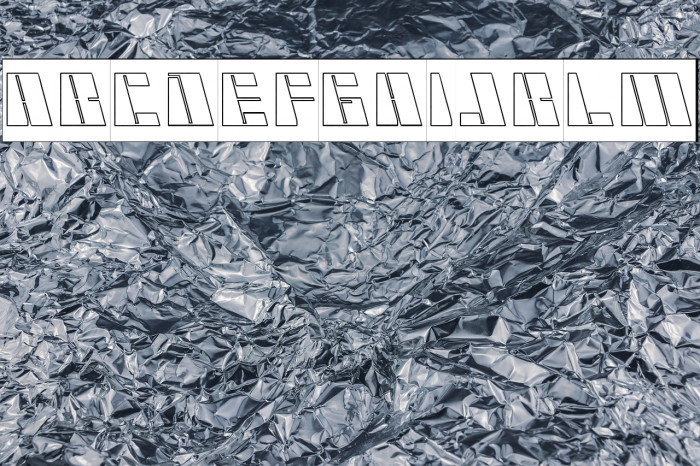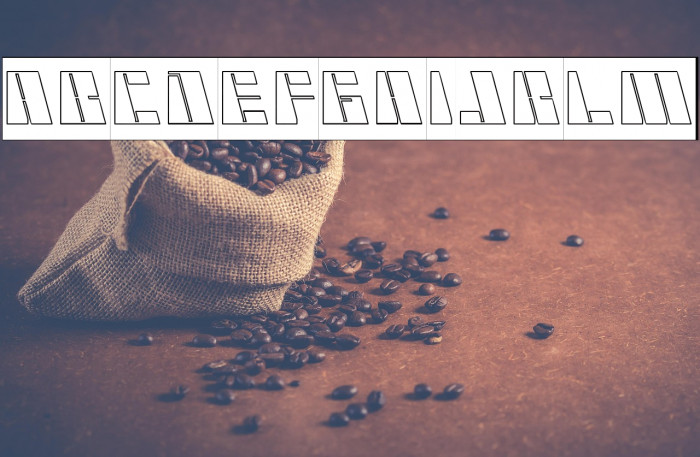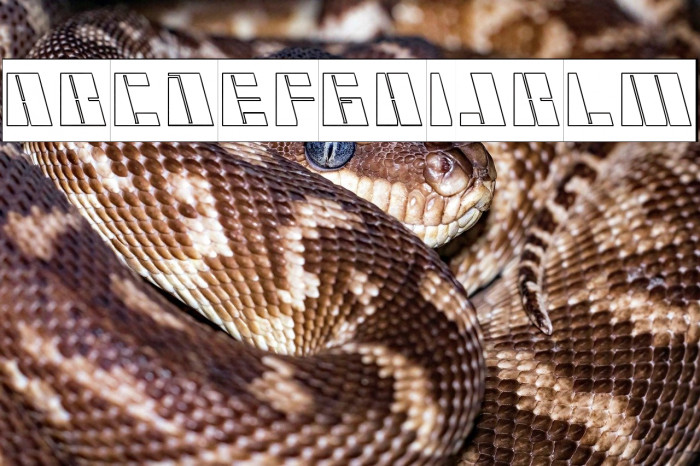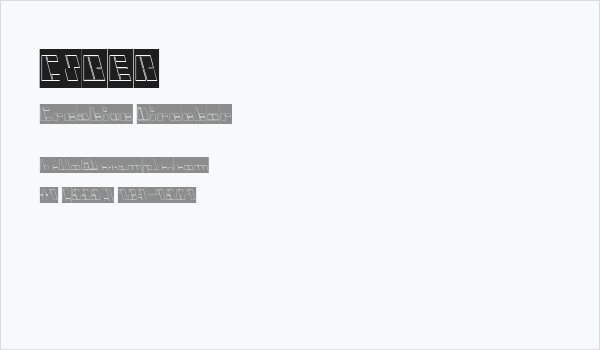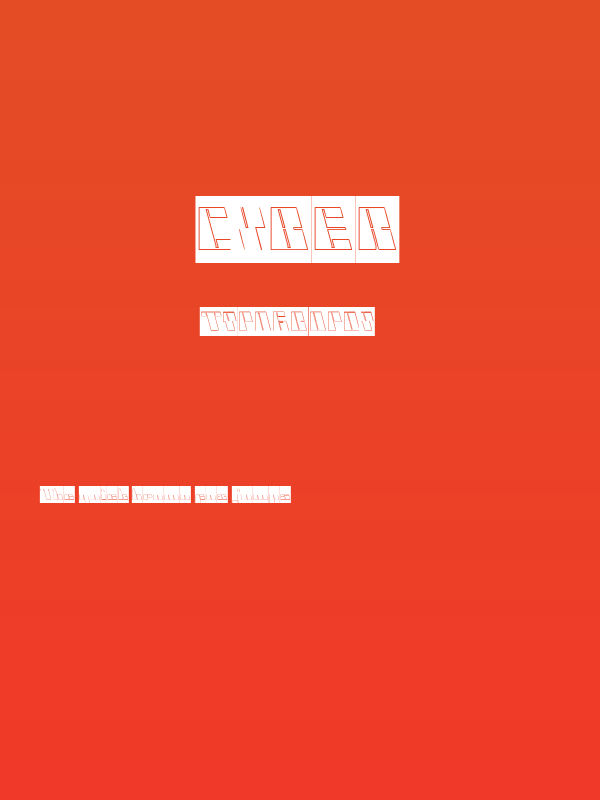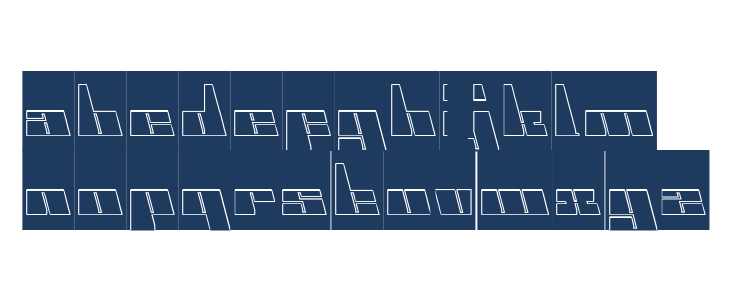
CYBER Font
CYBER Description
This font features a futuristic and geometric design with a three-dimensional effect. Each character is constructed with angular lines and sharp edges, creating a sense of depth and modernity. The uppercase and lowercase letters share a consistent style, while the numbers and special characters maintain the same angular and structured appearance. The font's unique design makes it stand out, ideal for projects that require a bold and innovative look.
| Proposed Projects | Ideal for technology-themed projects, video game titles, sci-fi movie posters, and modern branding. |